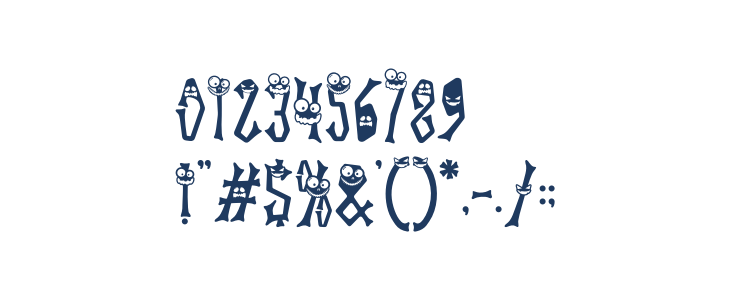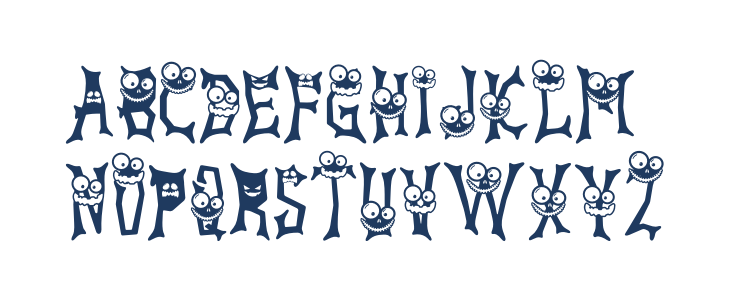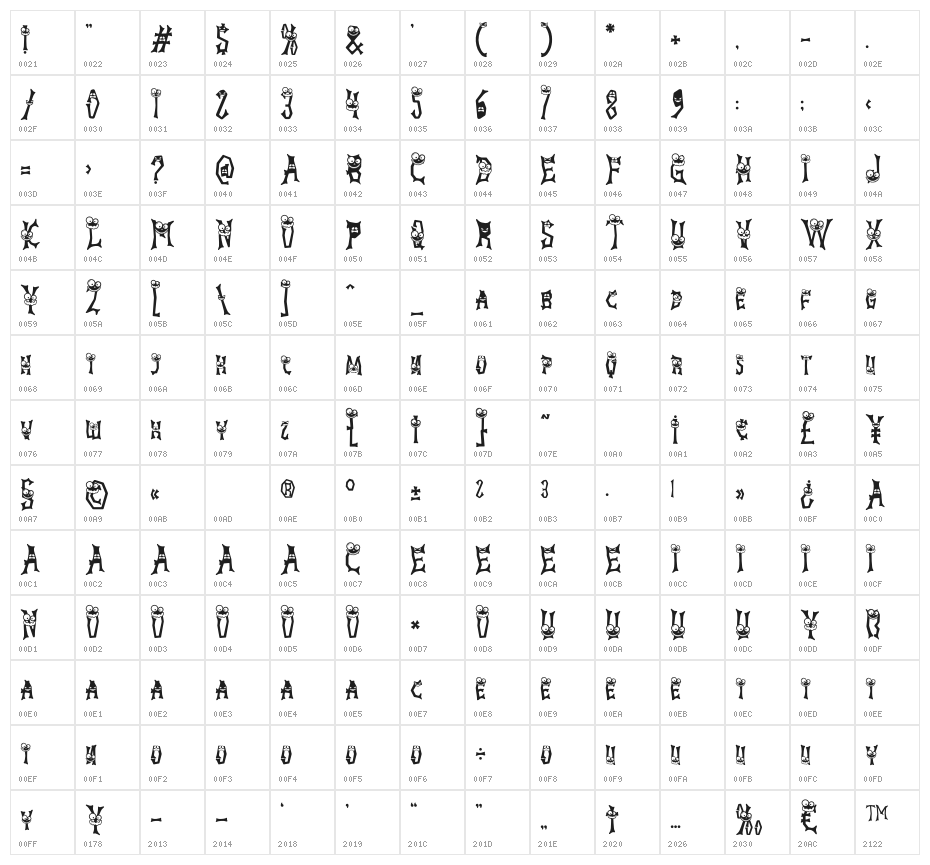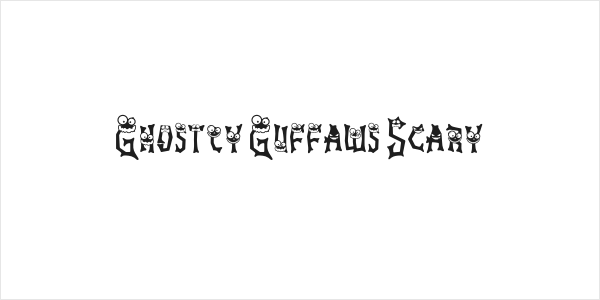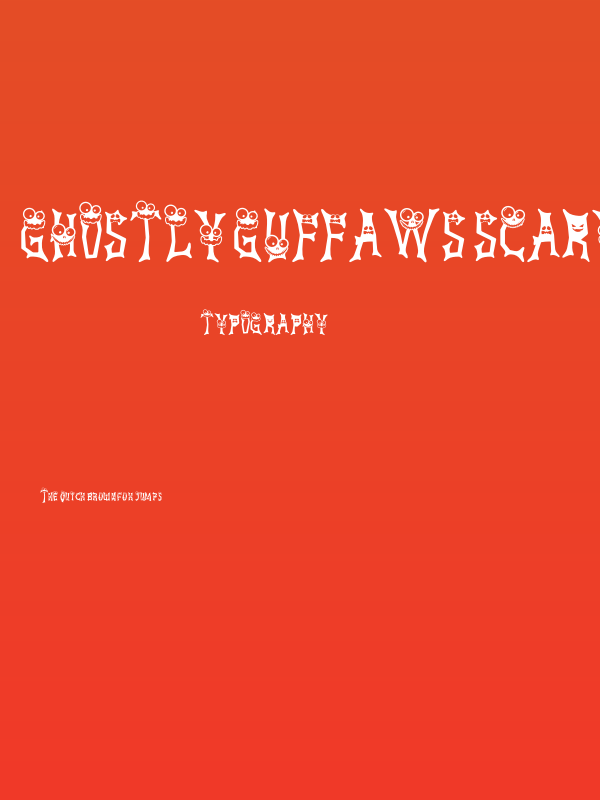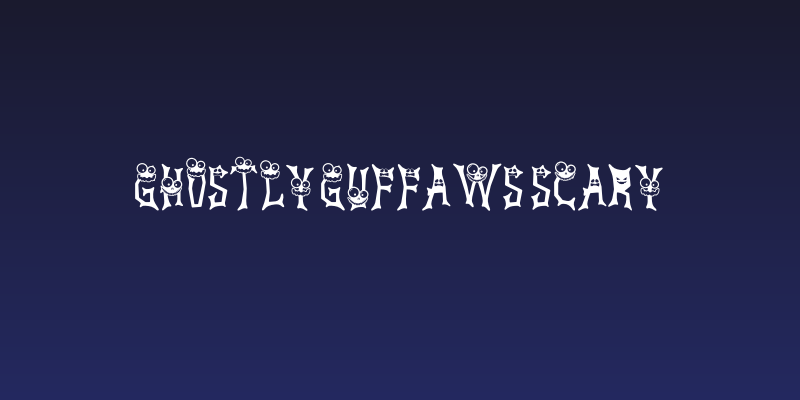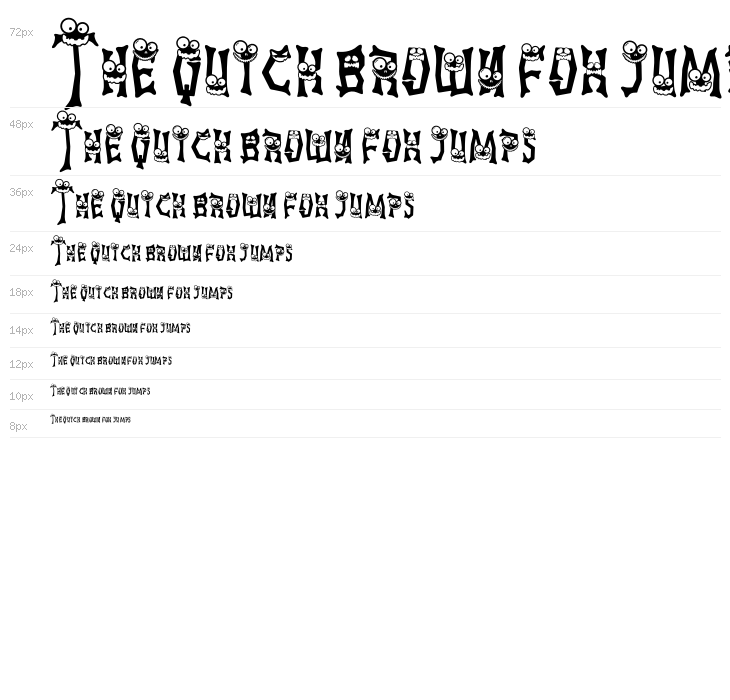
Ghostly Guffaws Scary Font
Ghostly Guffaws Scary Description
A playful, spooky display font featuring irregular, jagged letterforms with cartoonish, grinning monster faces integrated into each character. The style is highly decorative and evokes a whimsical, Halloween-inspired mood.
| Overall Style | Decorative, Whimsical, Spooky |
| Use Case | Headlines, Posters, Event Flyers, Themed Logos |
| Proposed Projects | Halloween party invitations, children's spooky storybooks, themed event posters, haunted house signage, playful branding for seasonal products. |